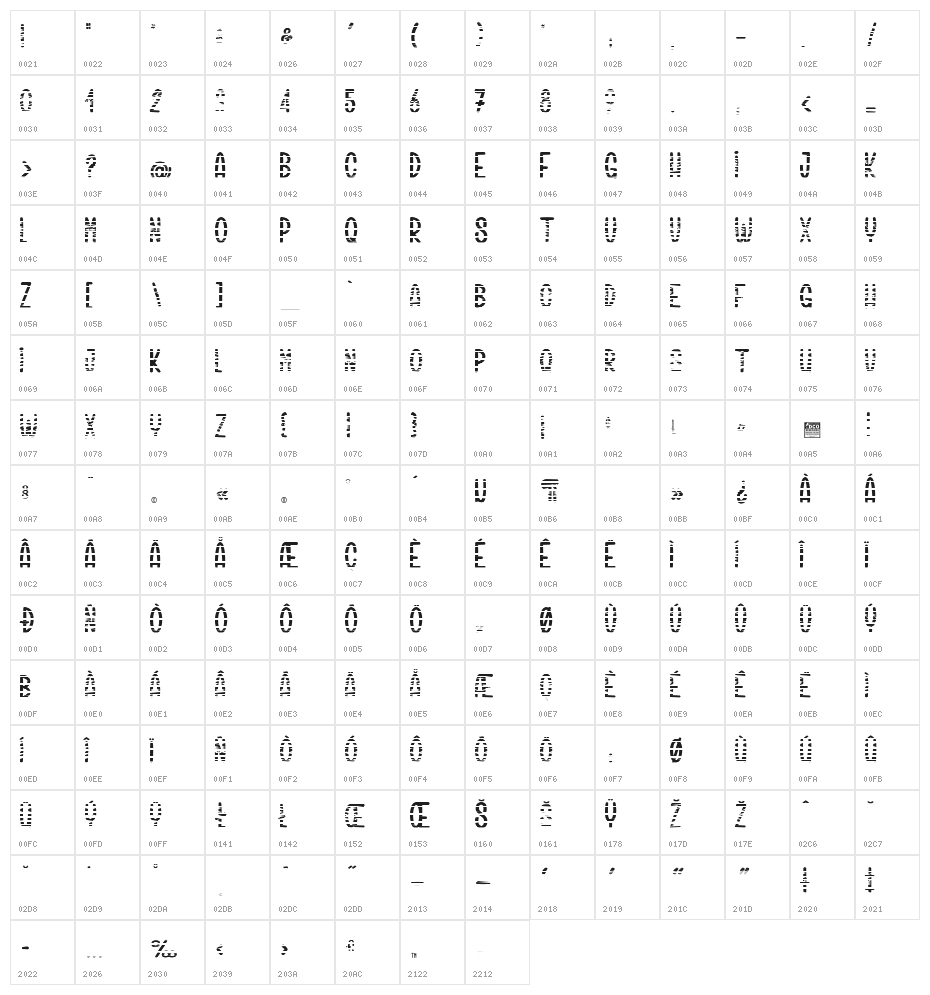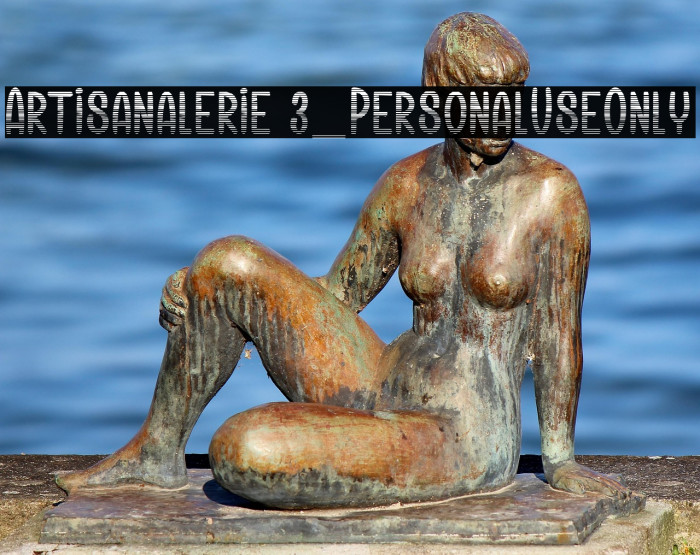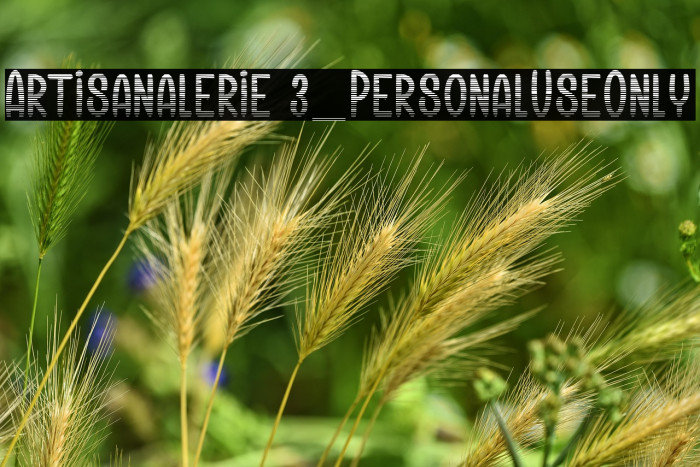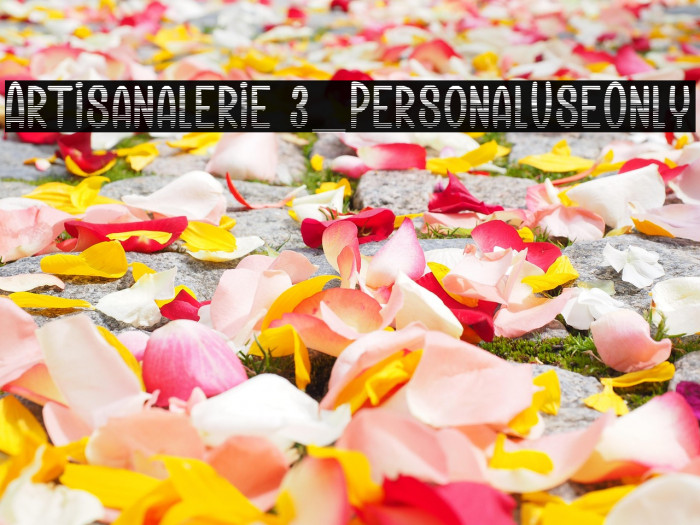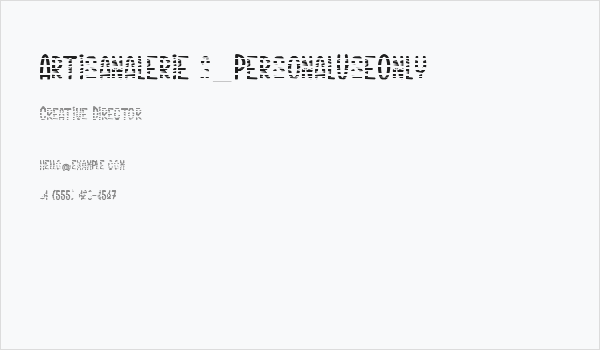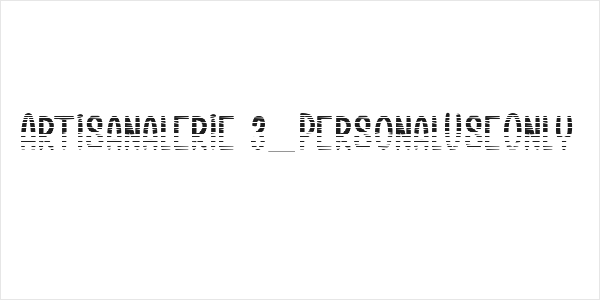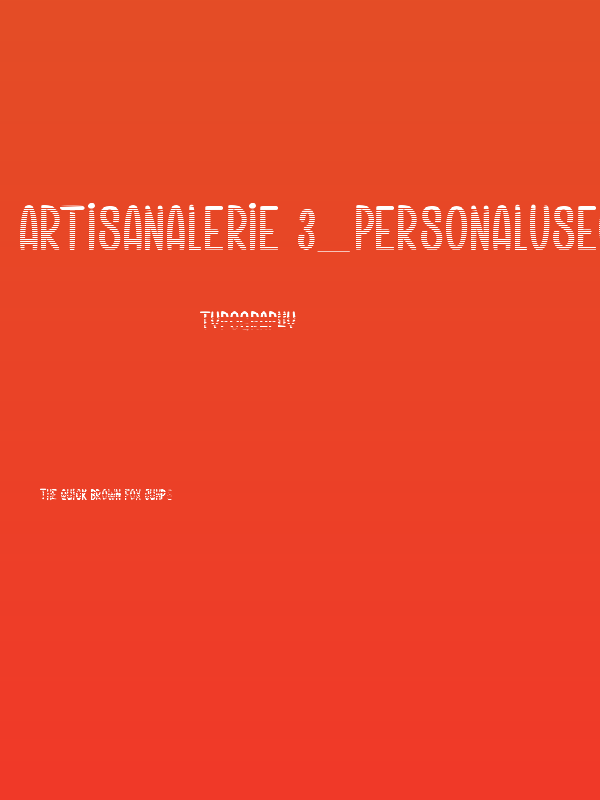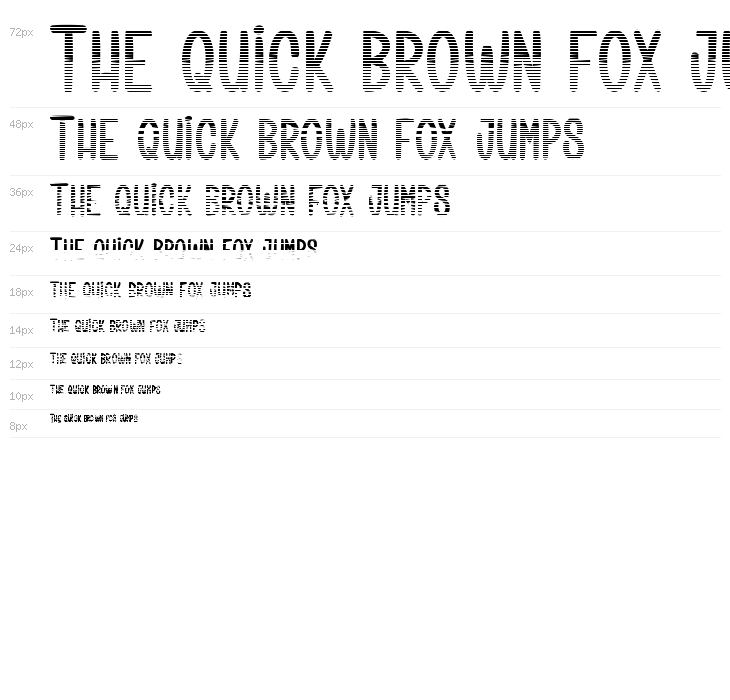
Artisanalerie 3_PersonalUseOnly Font
Artisanalerie 3_PersonalUseOnly Description
This font features a unique design with a striped pattern running horizontally through each character, giving it a distinct and modern appearance. The uppercase and lowercase letters maintain a consistent style, with clean lines and a geometric structure. The numerals and special characters are crafted to match the overall aesthetic, ensuring a cohesive look across all text. The font's design is both eye-catching and readable, making it suitable for a variety of creative projects. Its decorative nature is balanced by its clear legibility, making it versatile for both display and branding purposes.
Proposed ProjectsIdeal for branding, posters, headlines, and creative design projects where a modern and unique look is desired.